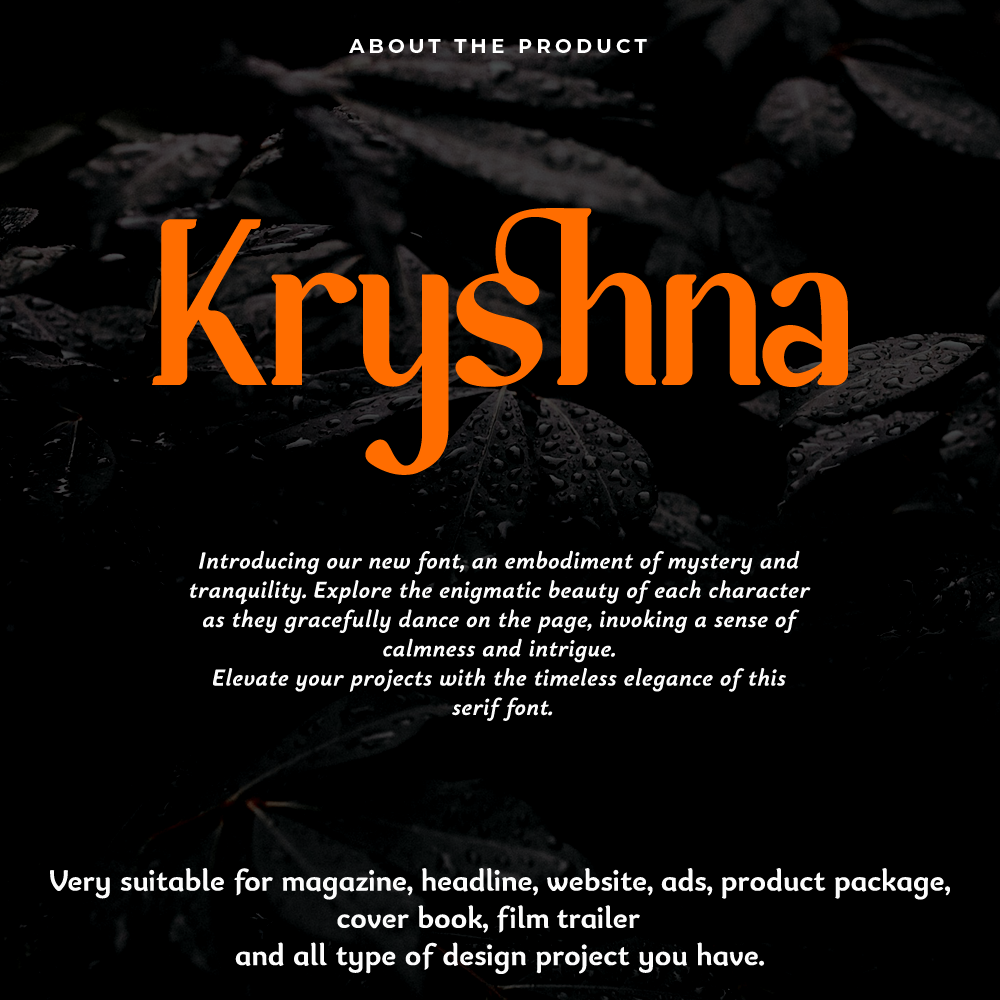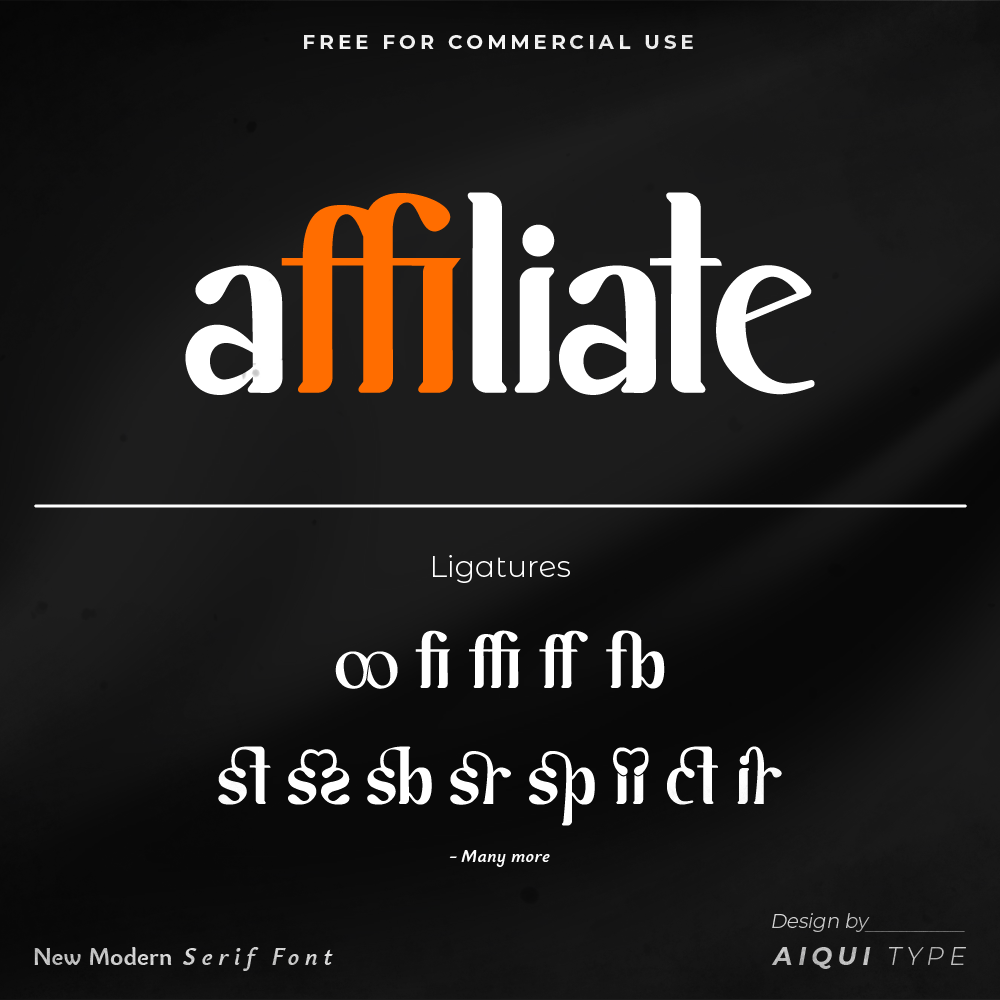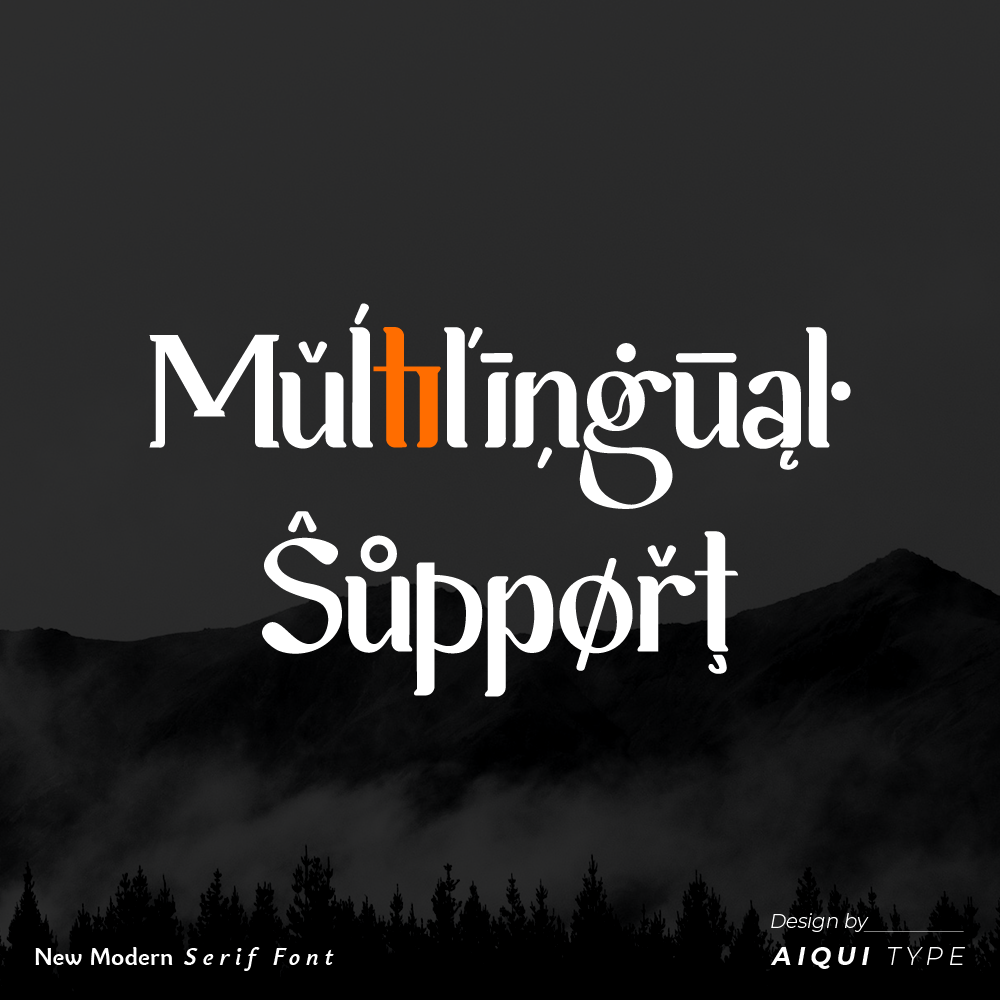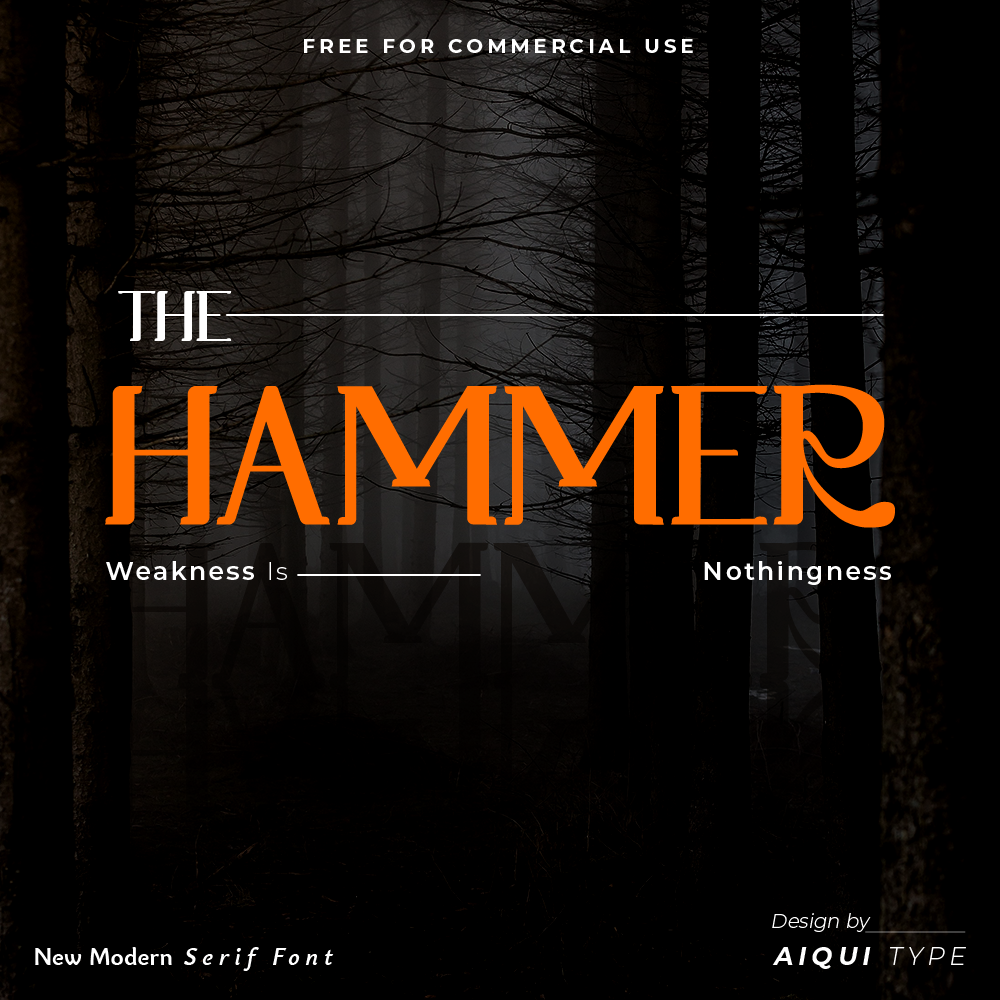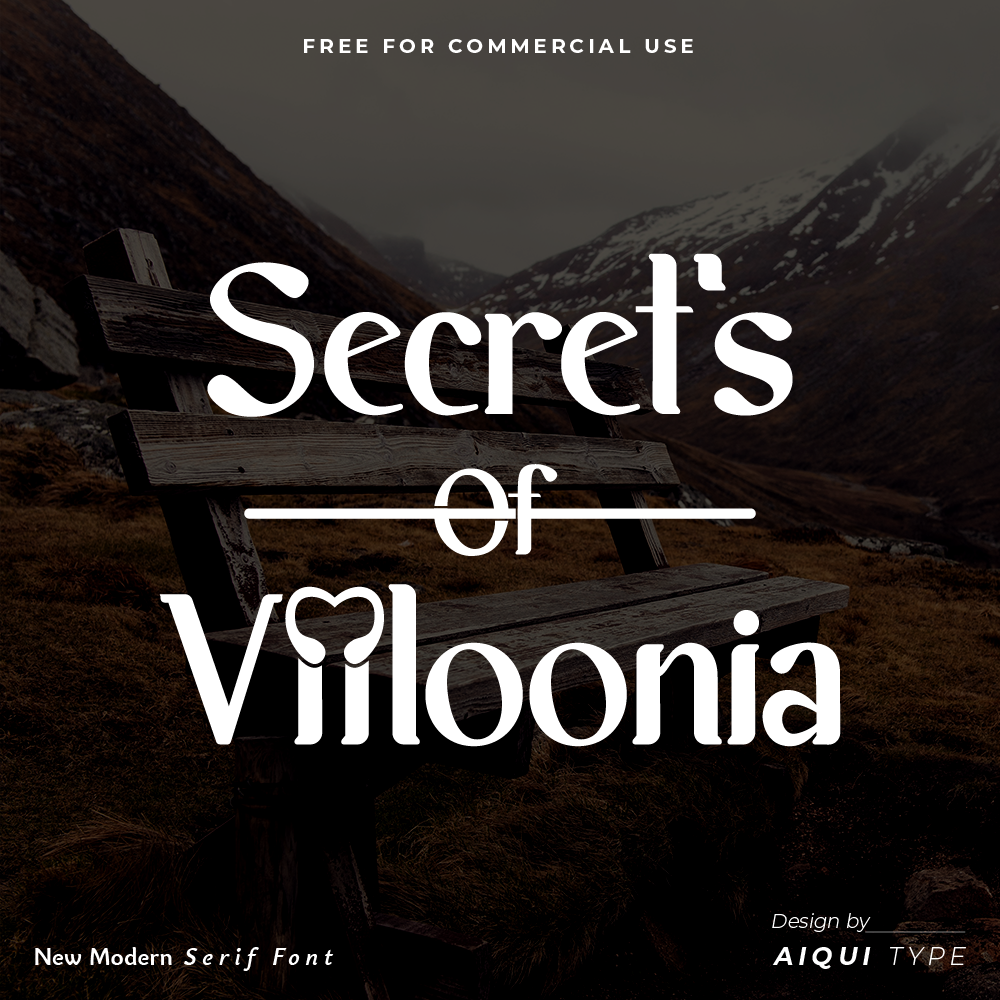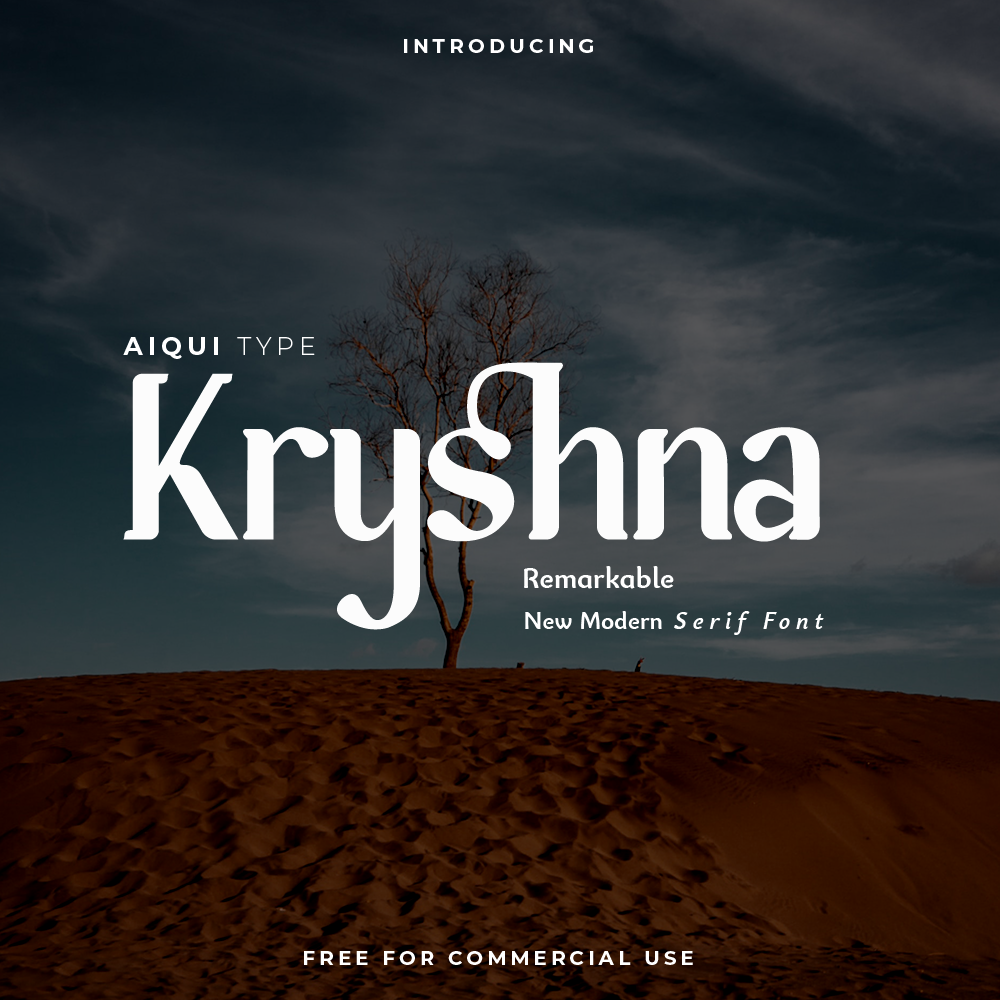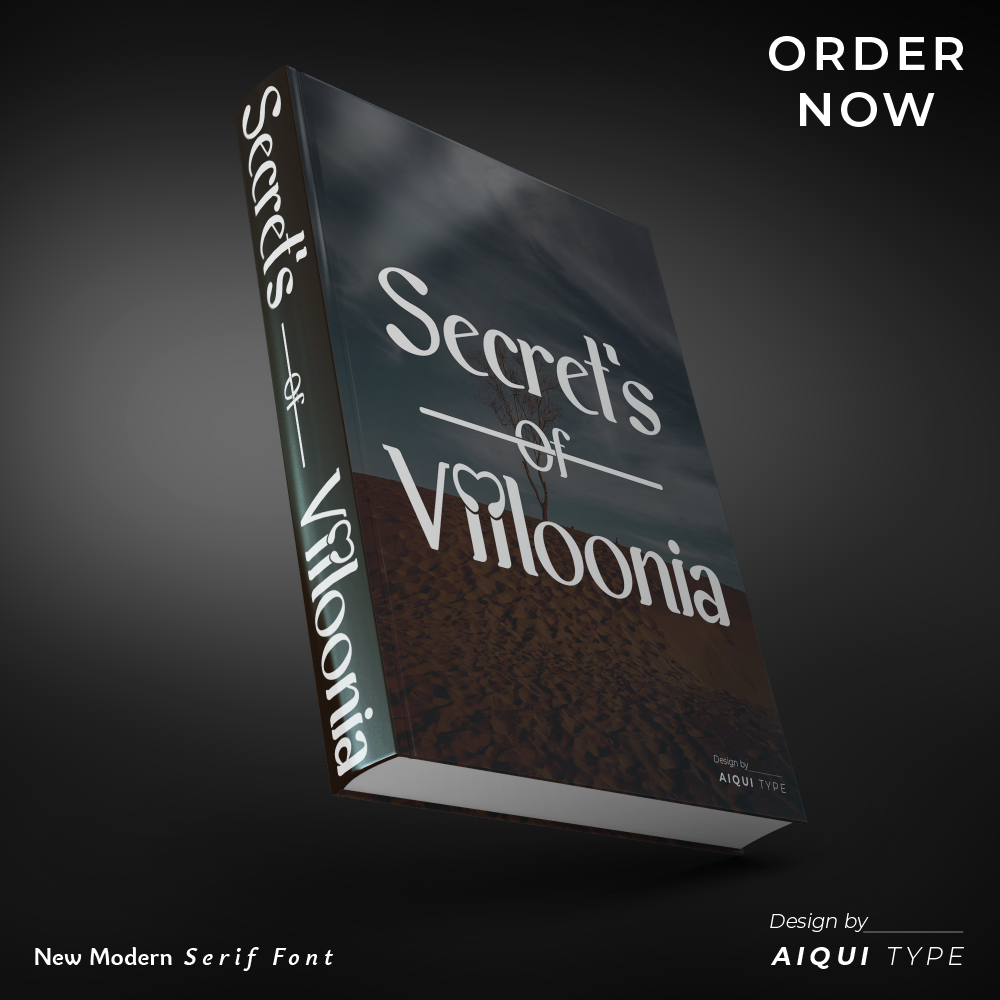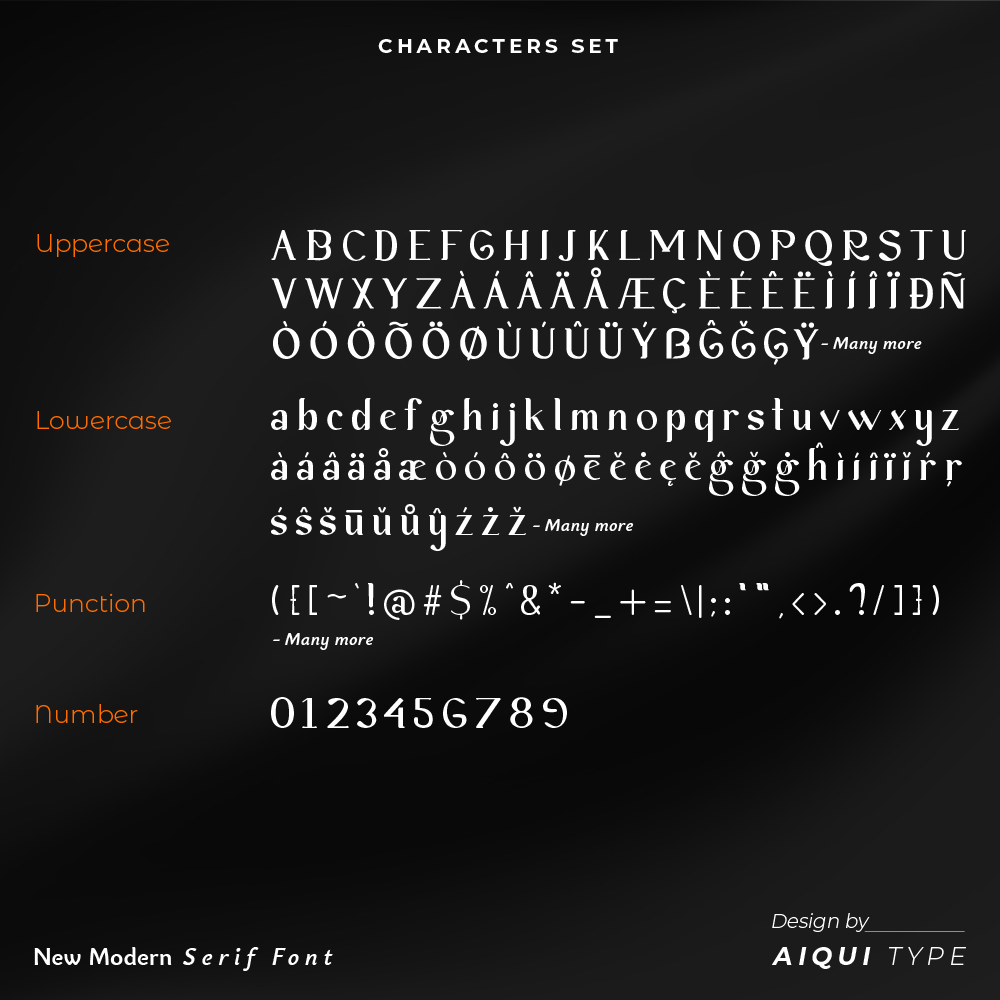
Kryshna - Serif Font
Introducing our "New Modern Serif-Font".
It's KRYSHNA,
With a stunning collection of 360 Glyphs, our font offers
endless creative possibilities, allowing you to bring your
designs to life with every character stroke.
2. Uppercase and Lowercase Characters
3. Punction and Number
4. Ligature Set : Standart and Disrectionary
5. Languages Support : Africa,Spanish,Portuguese,German
and Italian
8. Multilingual Support
Very suitable for magazine, headlline, website, ads, product package, cover book, film trailer cover (recommendation) and all type of design project you have.